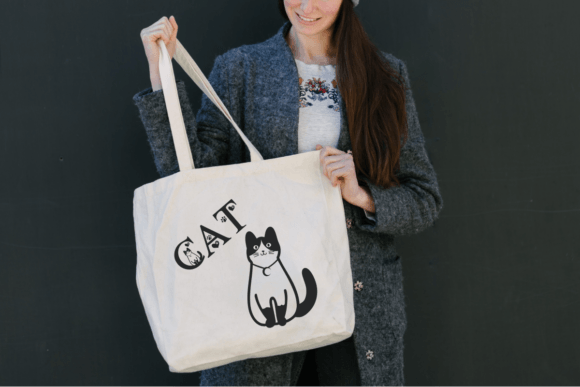
Cat Love Font
Cat Love is a decorative font with feline elements. You can use it for taking notes, writing a diary, or making greeting cards. However, you can still use it for other designs, such as banners, content, mugs, cards, shirts, stationery, social media posts, and more!